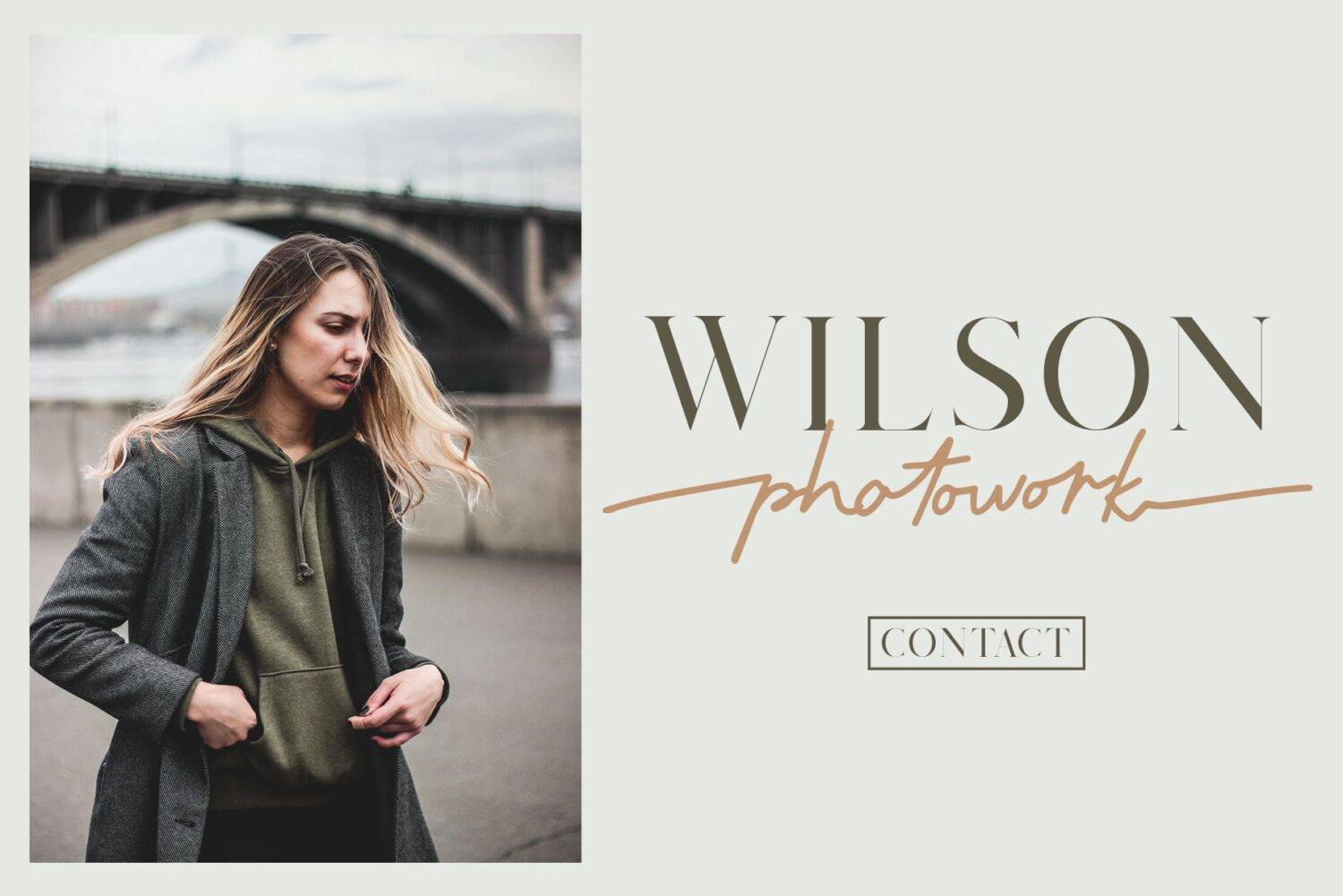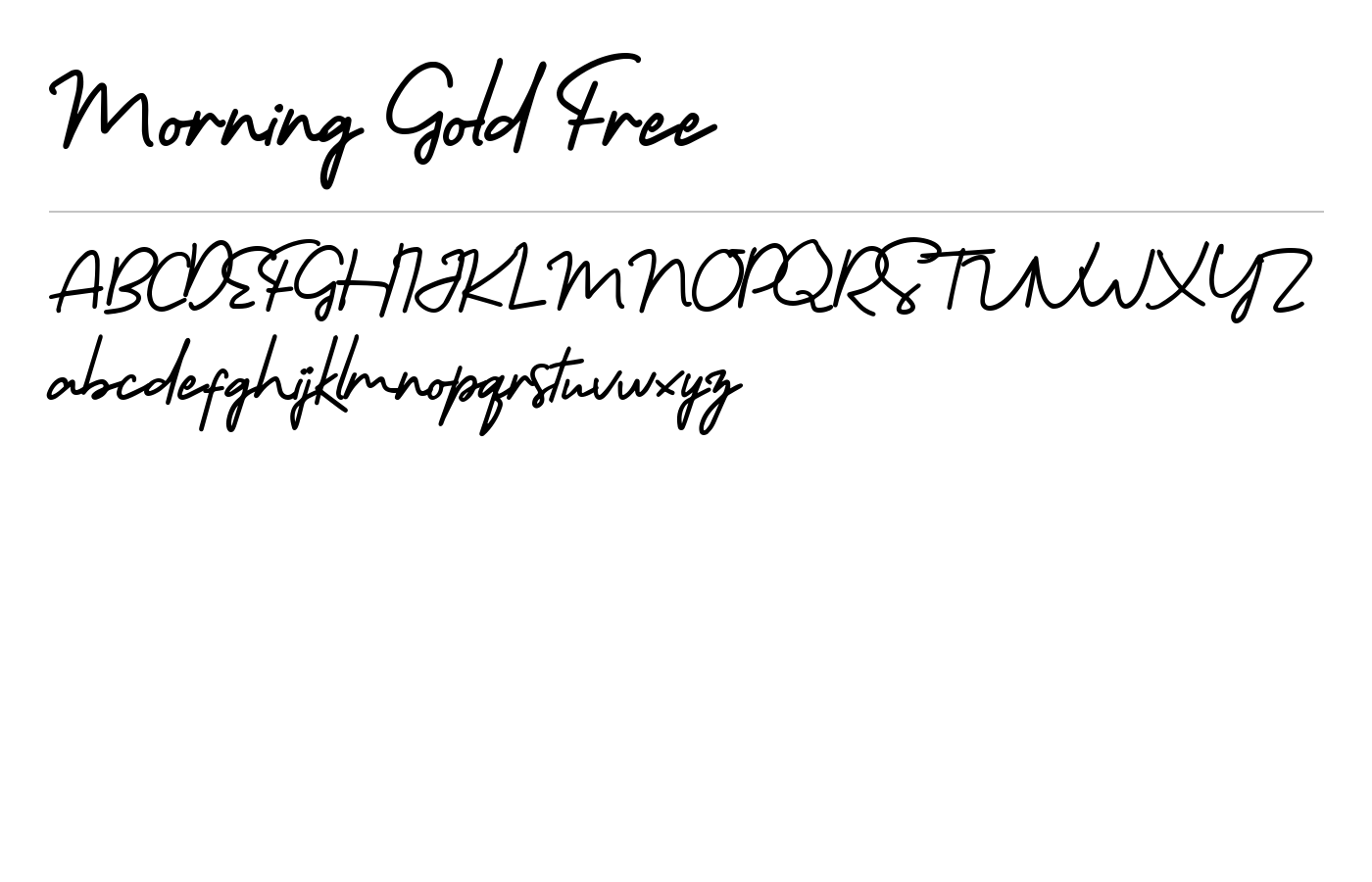
Morning Gold is a lively handwritten script font characterized by its playful, flowing strokes and casual elegance. Its slender, slightly irregular letterforms give it a personal, approachable feel, making it ideal for creative projects, branding, and invitations that seek a warm, friendly touch. This font works best in headlines or short text where a natural, humanistic style can stand out.
Morning Gold Font
About Morning Gold Font